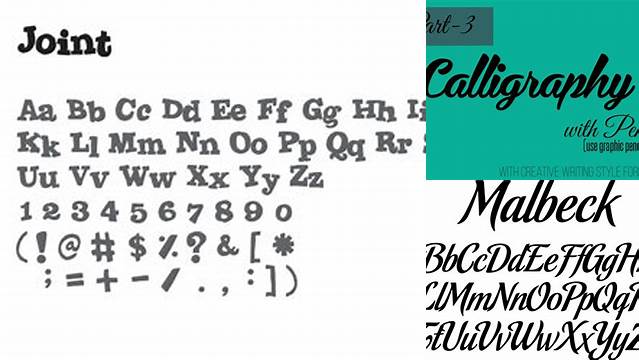
Are you looking to enhance your creative projects with unique and stylish fonts? Look no further! In this comprehensive guide, we will explore the world of joint writing fonts, where elegance meets readability. Joint writing fonts, also known as cursive or script fonts, mimic the flowing strokes of handwriting, adding a personal and sophisticated touch to any design. Whether you're a graphic designer, a student working on a presentation, or simply someone who appreciates beautiful typography, this article will provide you with valuable insights and resources to download free joint writing fonts.
Understanding Joint Writing Fonts
Joint writing fonts, at their core, are designed to replicate the connected, flowing nature of handwriting. Unlike blocky, sans-serif fonts often used for body text, joint writing fonts bring a touch of personality and artistry to your projects. These fonts are characterized by their connected letters, elegant curves, and varying stroke weights, which mimic the natural variations found in handwritten text. The beauty of joint writing fonts lies in their ability to convey emotion and create a sense of intimacy, making them ideal for invitations, logos, branding materials, and more.
Historical Significance
The art of joint writing dates back centuries, with roots in calligraphy and traditional penmanship. Before the advent of modern printing techniques, handwriting was the primary means of communication, and skilled scribes were highly valued for their ability to produce beautiful and legible text. Over time, various styles of joint writing emerged, each with its unique characteristics and cultural influences. From the elegant flourishes of Spencerian script to the bold strokes of Copperplate calligraphy, joint writing has played a significant role in shaping the history of typography.
Modern Applications
Today, joint writing fonts continue to be popular among designers and creatives who seek to add a touch of elegance and sophistication to their work. With the rise of digital typography, there is now a vast selection of joint writing fonts available, ranging from classic styles to modern interpretations. These fonts can be used in a variety of applications, including:
- Logos and Branding: Joint writing fonts can help create a memorable and distinctive brand identity.
- Invitations and Announcements: They add a personal and elegant touch to wedding invitations, birthday announcements, and other special events.
- Greeting Cards and Stationery: Joint writing fonts can enhance the visual appeal of greeting cards, thank you notes, and other stationery items.
- Web Design: They can be used to create eye-catching headlines, subheadings, and call-to-action buttons.
- Social Media Graphics: Joint writing fonts can help you stand out on social media and create a cohesive brand aesthetic.
- Pacifico: A fun and friendly script font that's perfect for creating a casual and approachable vibe.
- Great Vibes: An elegant and sophisticated script font that's ideal for wedding invitations and other formal occasions.
- Lobster: A bold and eye-catching script font that's great for headlines and logos.
Font Squirrel is another excellent resource for finding free, commercially licensed fonts. The website carefully curates its collection to ensure that all fonts are of high quality and legally available for use. To find joint writing fonts on Font Squirrel, simply browse the "Script" category or use the search bar to look for specific styles. Some notable joint writing fonts available on Font Squirrel include:
- Wisdom Script: A beautiful and flowing script font that's perfect for adding a touch of elegance to your designs.
- Alex Brush: A clean and modern script font that's ideal for logos, branding materials, and web design.
- Kaushan Script: A bold and energetic script font that's great for headlines and social media graphics.
DaFont is a popular website that offers a vast collection of free fonts, including a wide variety of joint writing styles. While DaFont's collection is not as carefully curated as Google Fonts or Font Squirrel, it offers a greater selection of unique and unusual fonts. To find joint writing fonts on DaFont, simply browse the "Script" category or use the search bar to search for specific styles. Keep in mind that many of the fonts on DaFont are free for personal use only, so be sure to check the licensing terms before using them in commercial projects.